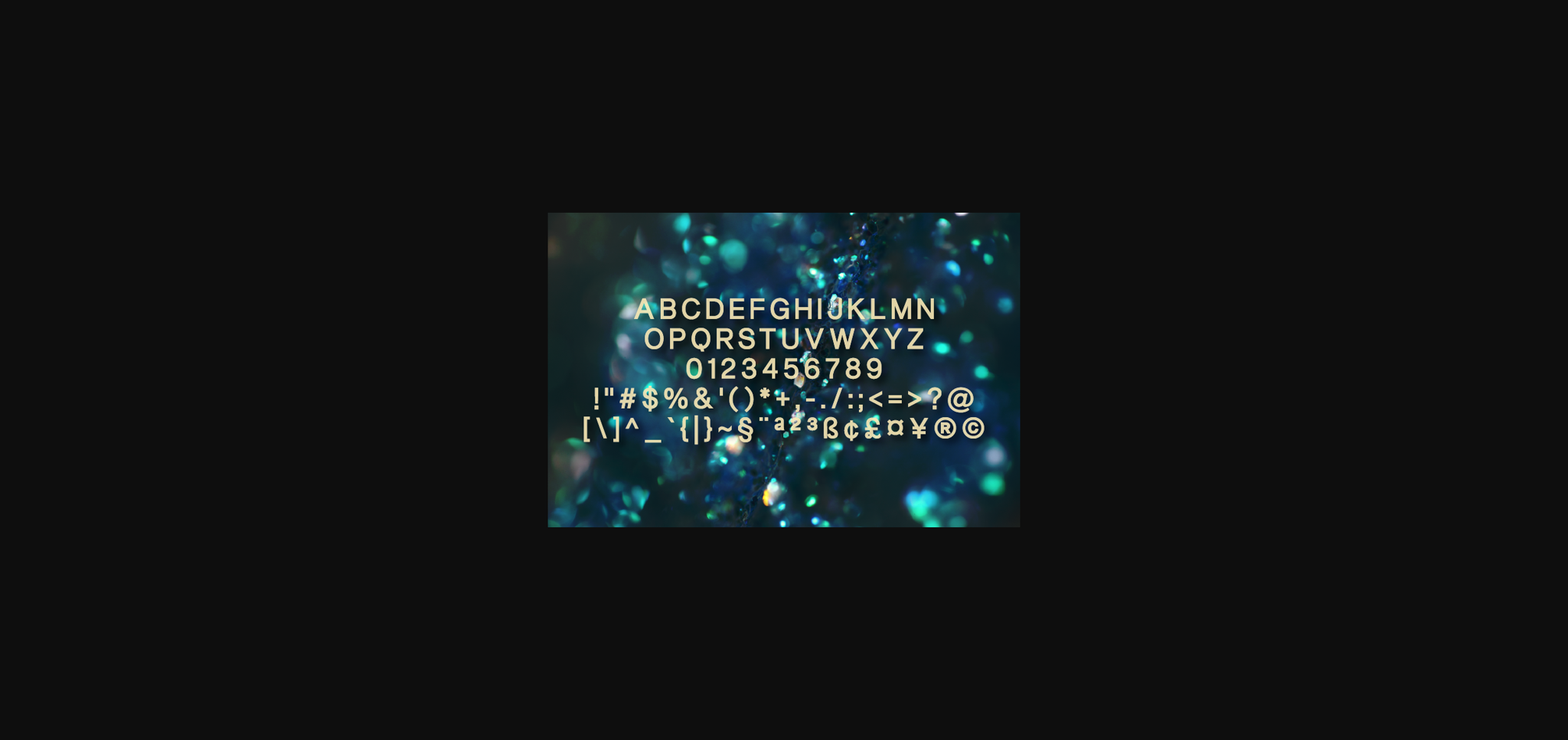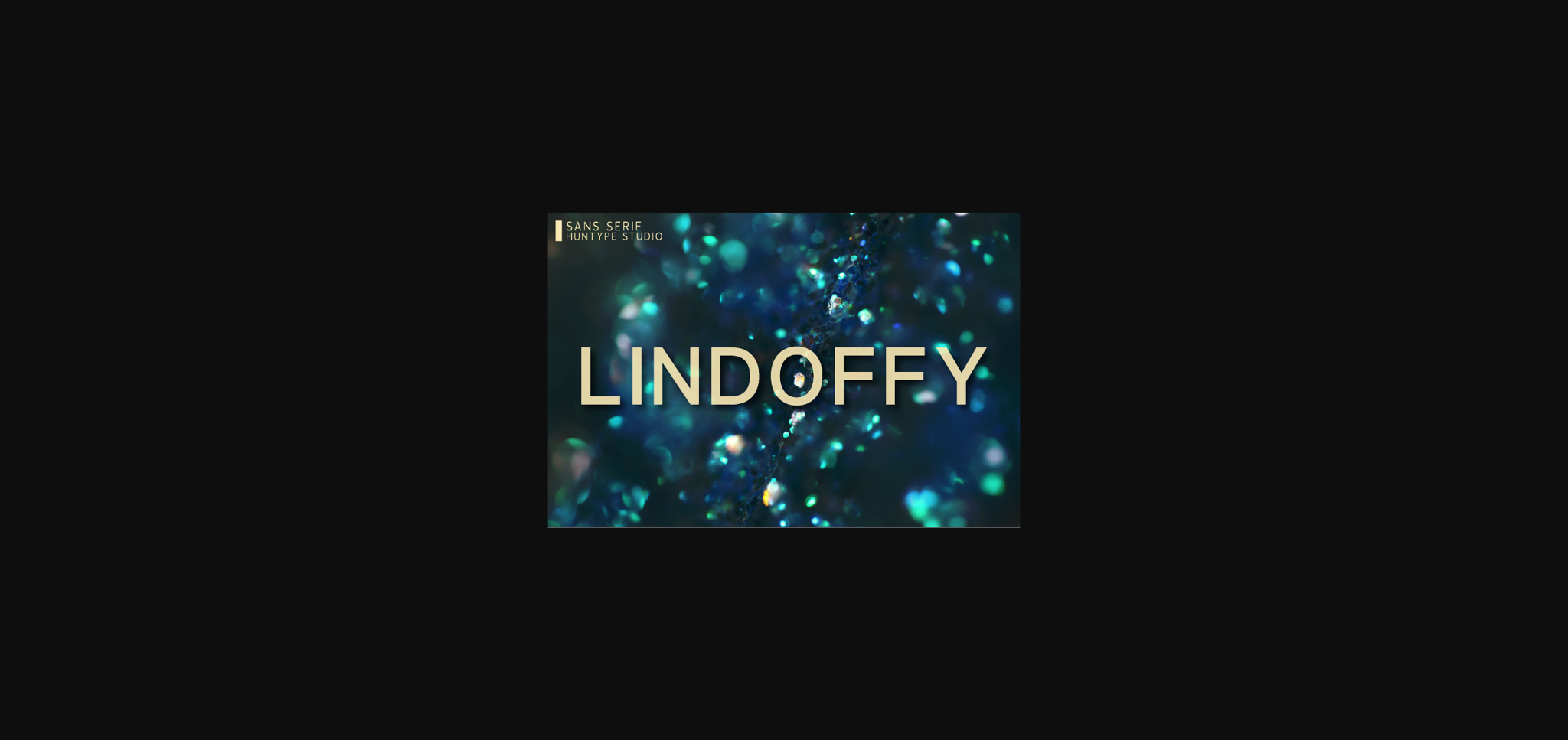
HomeSans Serif FontsLindoffy Font Sans Serif Fonts Lindoffy Font FacebookXPinterestWhatsApp 1 of 4 ... Lindoffy Font Poster 2... Lindoffy Font Poster 3... Lindoffy Font Poster 4... About Lindoffy Font Lindoffy is a simple and casual sans serif font with an undeniably clean feel. With its neat and beautiful arrangement of letters, this typeface will look outstanding in both formal and non-formal designs. DOWNLOAD NOW People also explored Culture Font Gantol Font Ashley Font Harella Font Freya Eir Font Paradisy Font Remind Him Font Dloothe Ridley Font Elegant Fashion Duo Font 471 0 TagsLindoffy Font Previous articleWebstereo FontNext articleRoldique Font LEAVE A REPLY Cancel reply Comment: Please enter your comment! Name:* Please enter your name here Email:* You have entered an incorrect email address! Please enter your email address here Website: Save my name, email, and website in this browser for the next time I comment. Personal Use Free Quick Count Personal Use Free Read more about this font Quickline Personal Use Free Read more about this font BD Medled Personal Use Free Read more about this font Fake Receipt Personal Use Free Read more about this font BLOG Free vs Paid Fonts: Why Investing in Premium Fonts Is Worth It Free vs Paid Fonts: Why Premium Fonts Are Worth It in 2025 The debate of free vs paid fonts continues in the design world. While... Exploring Font Trends Free Fonts Risk: Why Free Fonts Can Be Dangerous for Designers The 10 Best Handwriting Fonts to Add Personality to Your Designs